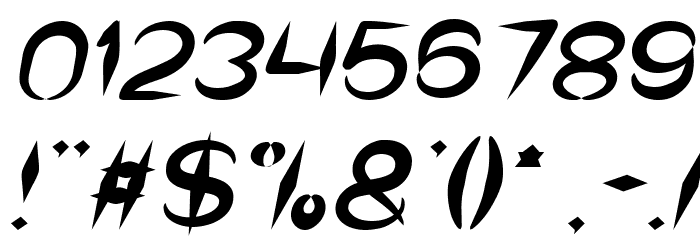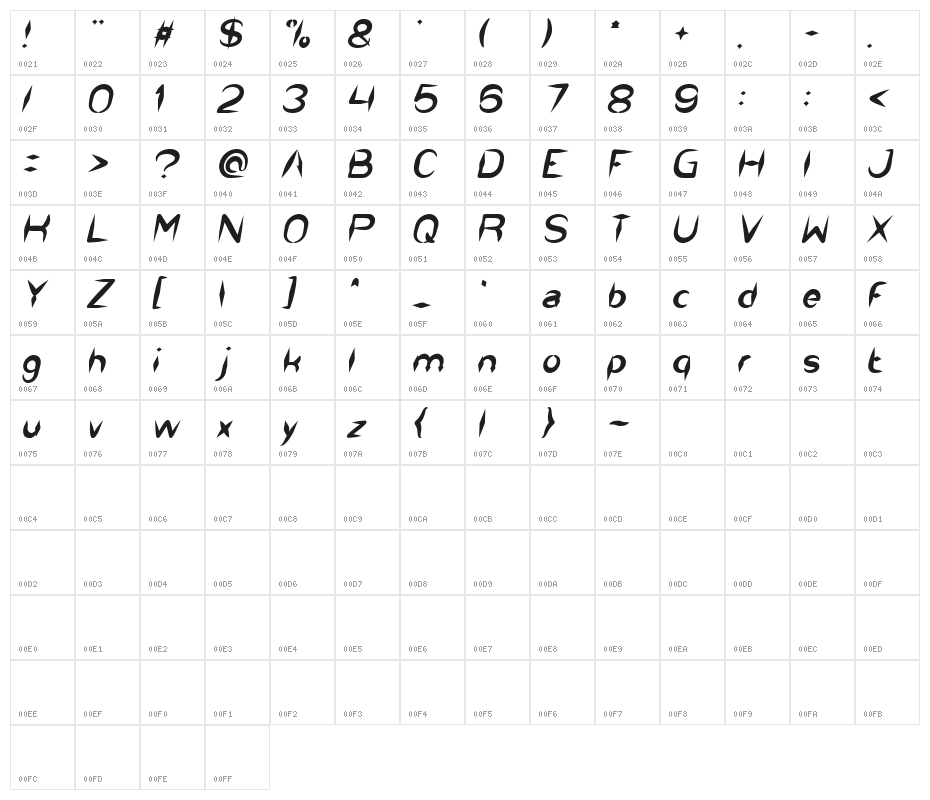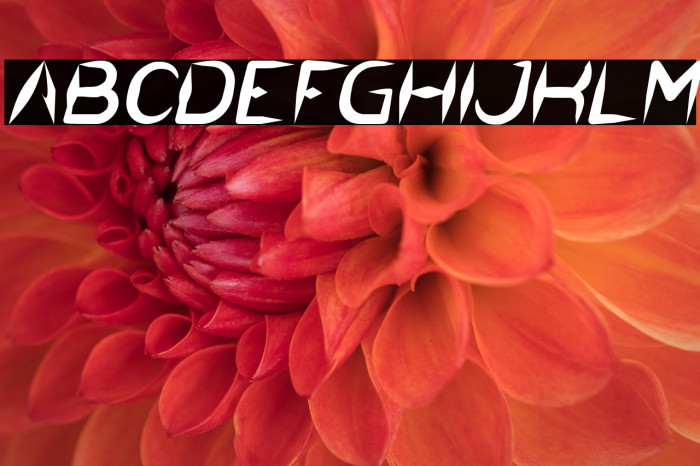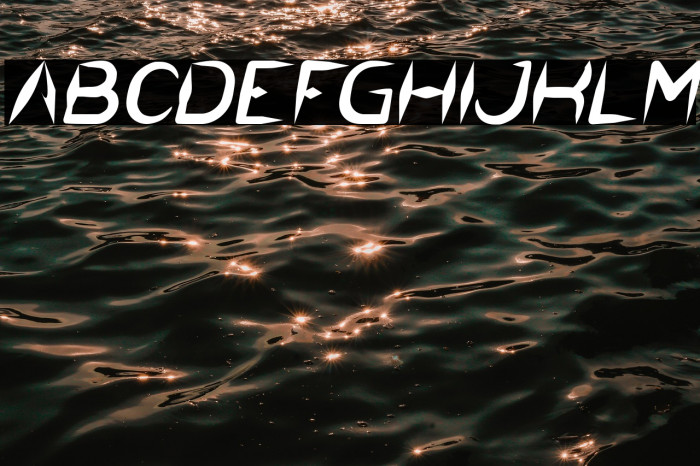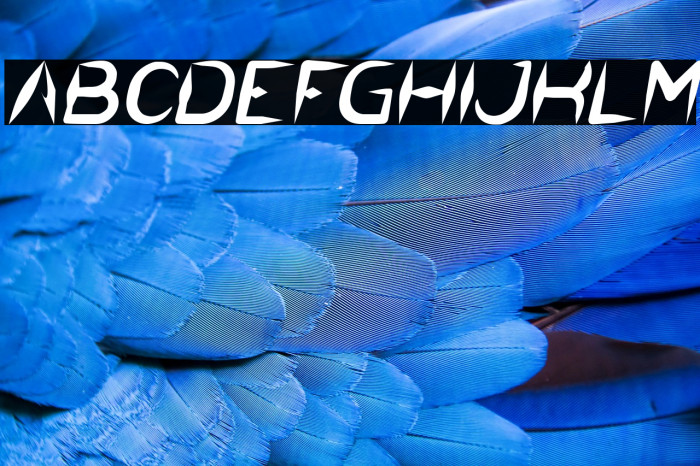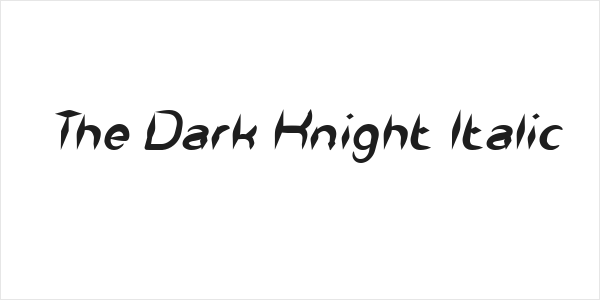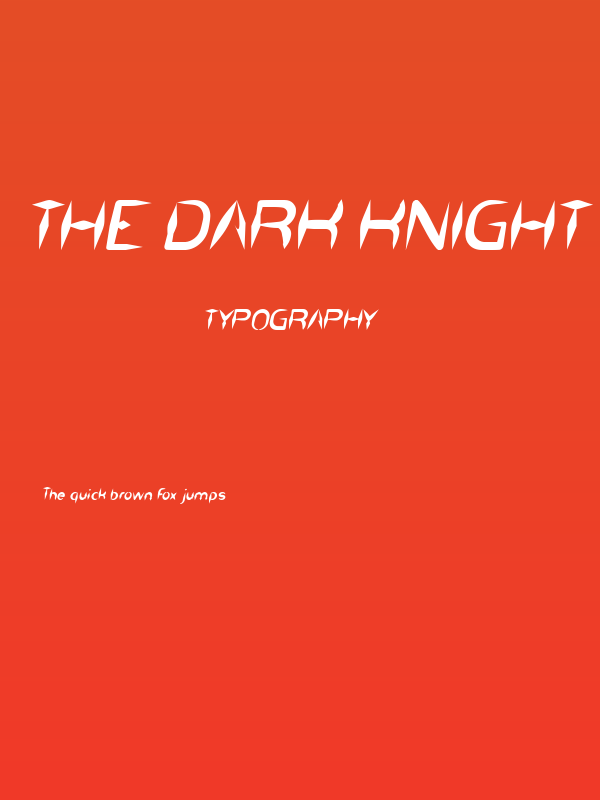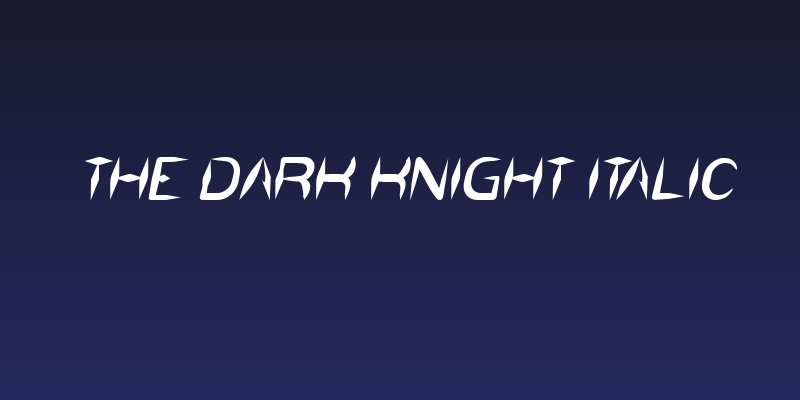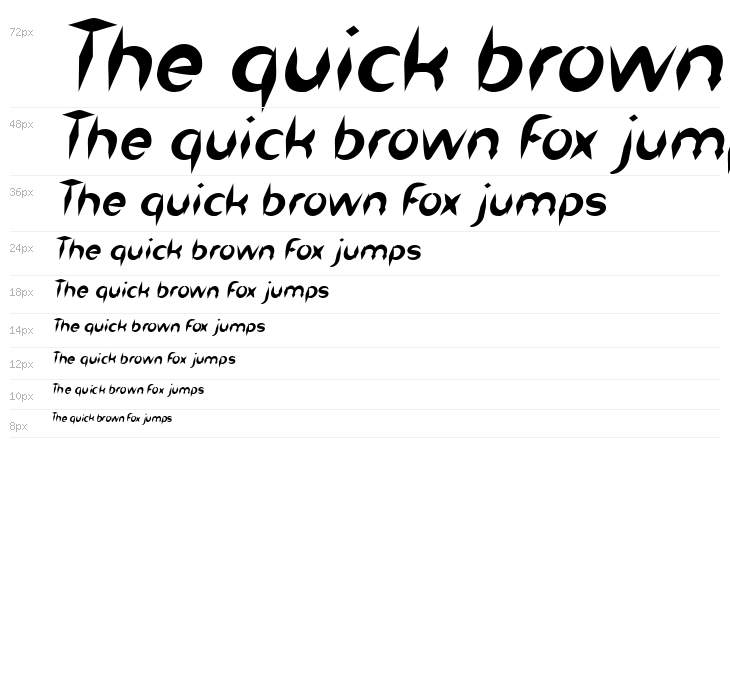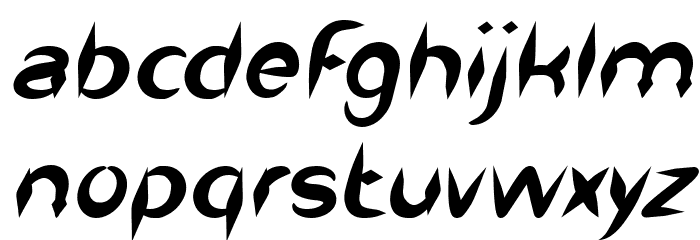
The Dark Knight Italic Font
The Dark Knight Italic Description
This font features a dynamic and edgy design, characterized by sharp angles and a forward-leaning italic style. The uppercase letters exhibit a bold presence with pointed serifs and a sense of movement, while the lowercase letters maintain a consistent flow with similar angularity. The numerals are distinct and maintain the same sharp aesthetic, ensuring readability while adding a unique flair. Special characters are crafted with the same attention to detail, making them seamlessly integrate with the overall design. This font's bold and italic nature gives it a striking appearance, suitable for projects that require a strong visual impact.
| Overall Style | Modern, Edgy |
| Proposed Projects | Ideal for movie posters, video game titles, branding for edgy products, and any design requiring a bold, impactful statement. |